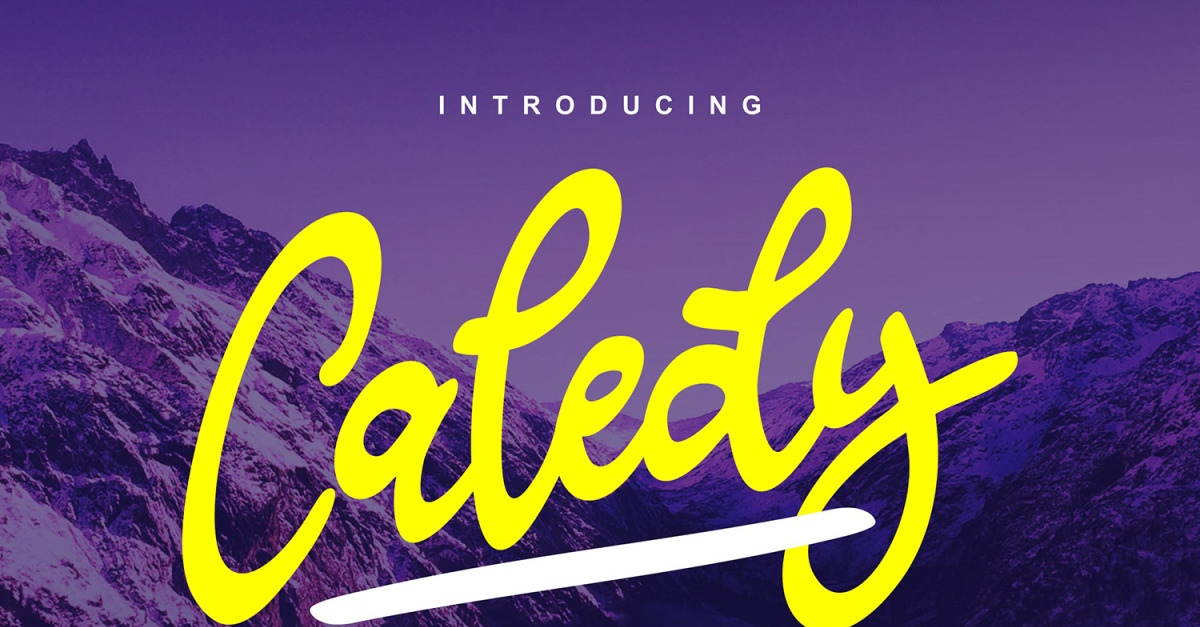
Caledy | Modern Soft Cursive Font
**Caledy | Modern Soft Script ** with a calligraphy style, So beautiful on invitation like greeting cards, branding materials, business cards, quotes, posters, and more!